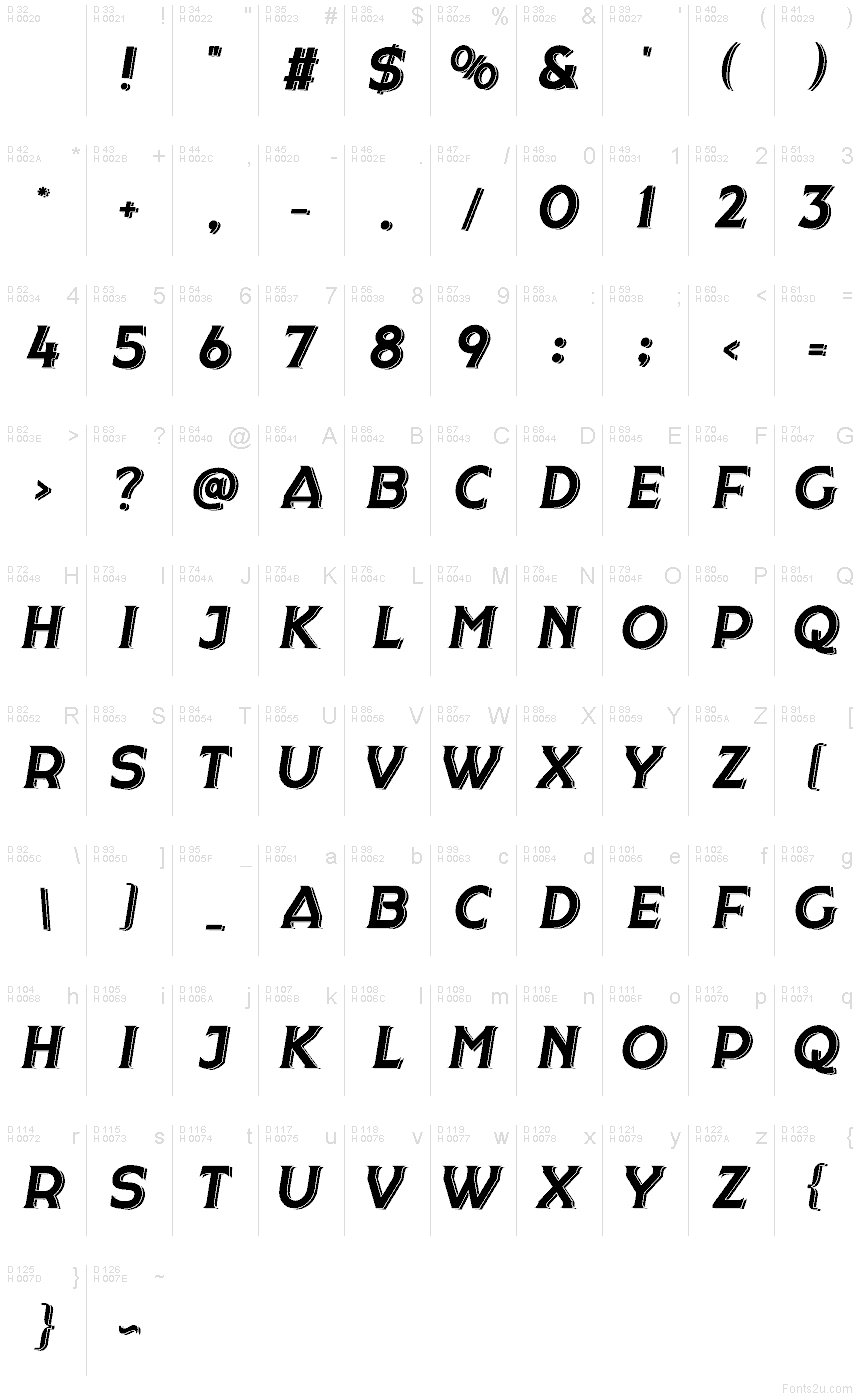
Stockport Italic Personal
Stockport Italic font by Trequartista Studio is a free decorative display serif font. Built around a chiseled, engraved look with slanted momentum, it stacks bright highlights against inky shadows to create a convincing cut-metal sheen. The sharp serifs and tight rhythm feel athletic yet vintage, giving headlines that dramatic lean you can’t fake. As part of the Stockport family, it keeps consistency while dialing up the flair.
Using Stockport Italic, you’ll get bold impact on posters, sports branding, beer labels, vintage packaging, event titles, and book covers. This free font shines when set large, letting the internal shading and contrast do the heavy lifting. Pair it with a clean grotesk for body copy to keep the spotlight on its sculpted strokes and confident pace.